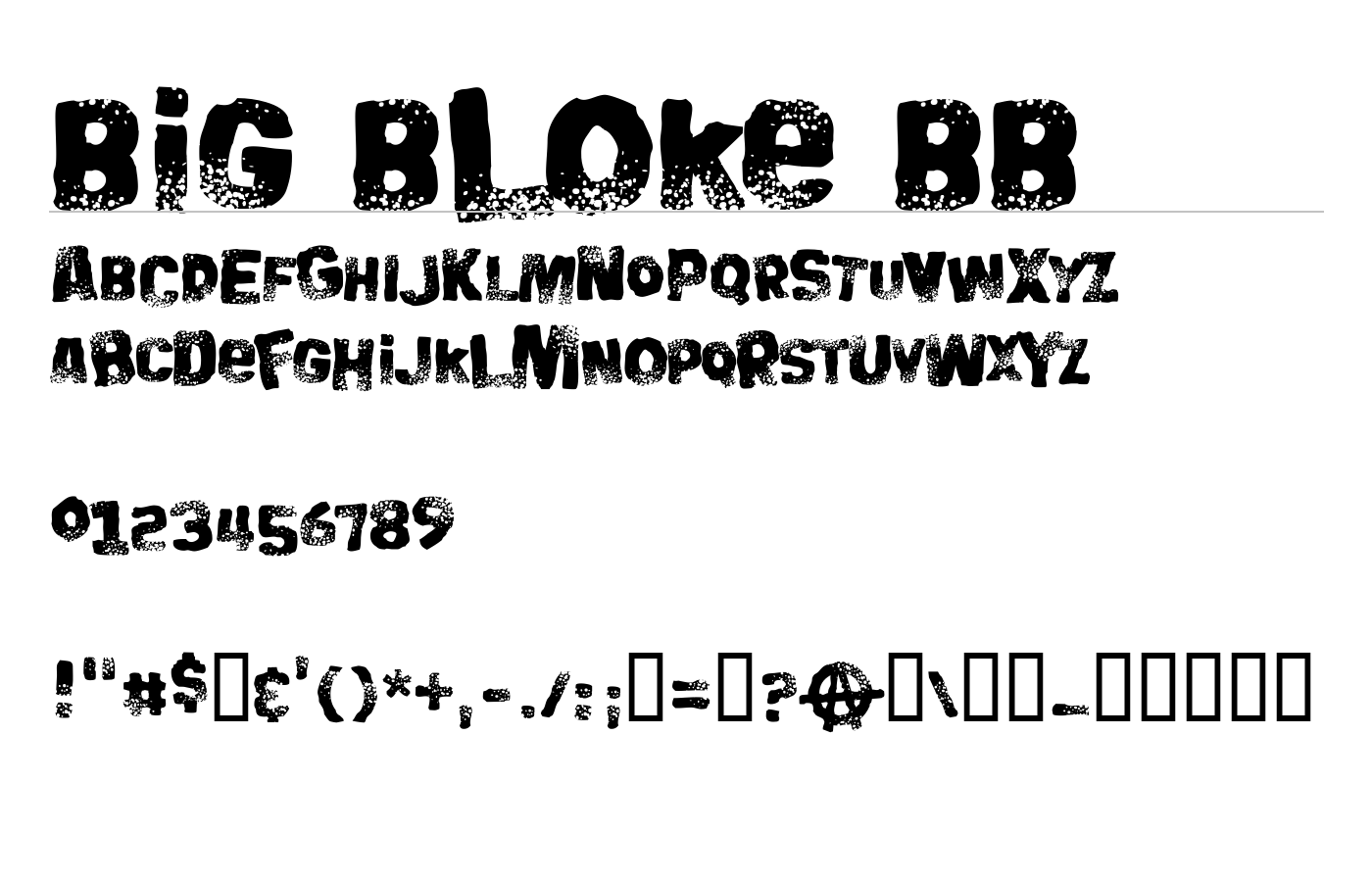
Big Bloke BB is a bold, playful sans serif font with a rough, textured appearance that gives it a hand-stamped or distressed look. Its uneven edges and irregular dot patterns evoke a casual, quirky feel, making it perfect for attention-grabbing headlines, posters, or creative branding that wants to convey fun and energy. This font works well in designs that benefit from an informal, edgy vibe rather than clean, polished typography.
Big Bloke BB Font
About Big Bloke BB Font